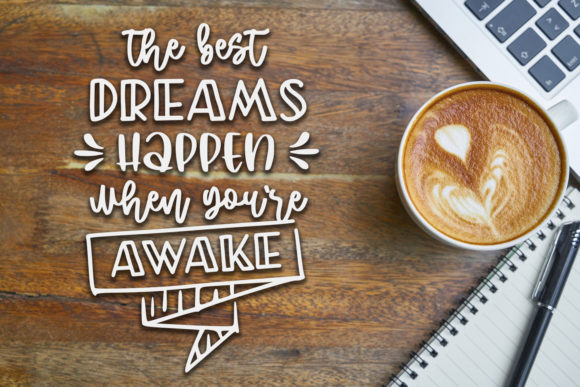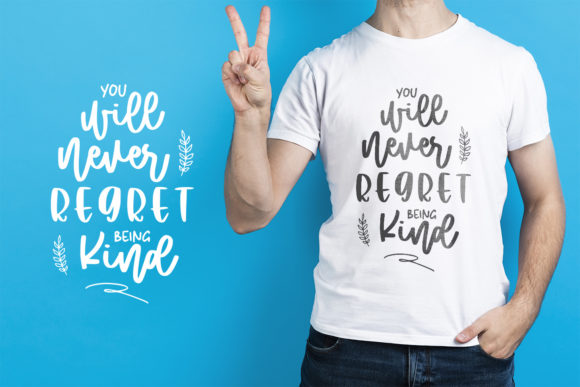
Malihah Font
db-ku.com - Script & Handwritten -- Malihah is a joyful, bouncy and incredibly cute handwritten font. Fall in love with its incredibly versatile style and use it to create gorgeous wedding invitations, beautiful stationary art, eye-catching social media posts, and much more!